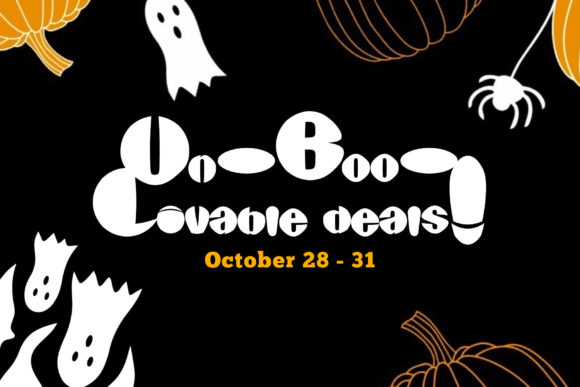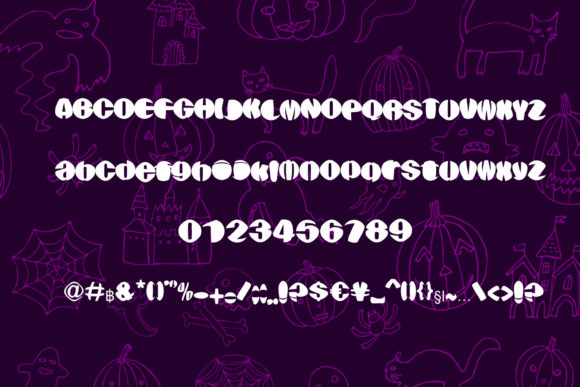
Unleash the Magic of Halloween Crafting
Do you ever find yourself staring at a blank sheet of paper, wondering how to bring your spooky season creations to life? The struggle is real, especially when it comes to finding the perfect font to set the tone for your Halloween crafts. But fear not, dear crafters, for we have just the solution: the enchanting Halloween Moon Font.
This cool, unique, and modern display font is specifically designed to elevate your Halloween crafting projects to the next level. With its otherworldly charm, it’s sure to captivate your audience and leave them spellbound. As a designer, you’ll appreciate the versatility of Halloween Moon Font, which can be used for a wide range of projects, from spooky invitations to eerie signage.
Halloween Moon Font Key Features
- Unique Characteristics: Halloween Moon Font features a spooky, handwritten style with intricate details and unique letterforms, perfect for creating a haunting atmosphere in designs and typography.
Halloween Moon Font Review
Halloween Moon Font is a unique and quirky font that’s perfect for designers looking to add a touch of spooky charm to their projects. ✨ The font’s irregular lines and shapes give it a hand-drawn feel that’s sure to grab attention. ✨ I also appreciate the font’s versatility – it can be used for a variety of projects, from horror movie posters to Halloween-themed decorations.
However, there are a few limitations to consider. ⚠️ The font may not be suitable for projects that require a lot of text, as the irregular lines and shapes can make it difficult to read. ⚠️ Additionally, the font may not be compatible with all systems or devices, which could cause issues with font rendering.
Overall, I think Halloween Moon Font is a great choice for designers who want to add a touch of whimsy and personality to their projects. While it may have some limitations, the font’s unique charm and versatility make it a great addition to any designer’s toolkit.
Pros and Cons:
- Unique and quirky design
- Perfect for adding a touch of spooky charm
- Can be used for a variety of projects
- May not be suitable for projects with a lot of text
Tips for Getting the Most Out of Halloween Moon Font
For best results, use the Halloween Moon Font in combination with spooky-themed graphics and colors.
Experiment with different font sizes and styles to create a unique and eerie effect.
Use the Halloween Moon Font for titles, headings, and other text elements to add a touch of Halloween magic to your design.
The Halloween Moon Font is perfect for: